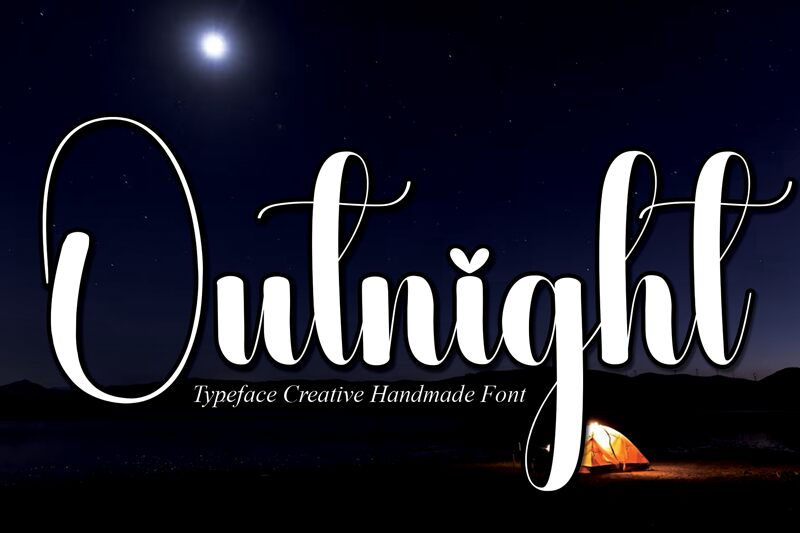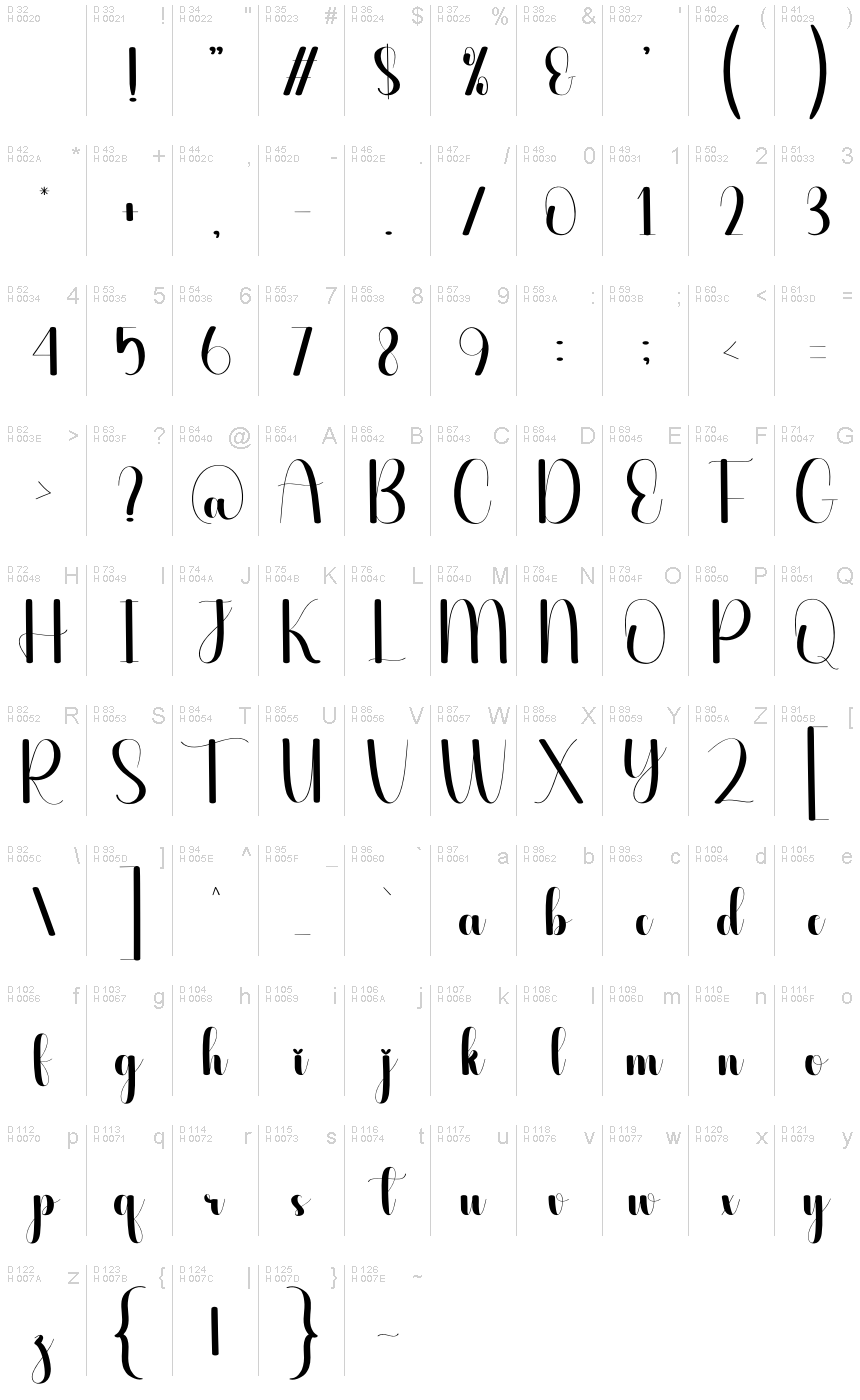
Outnight
Outnight font, designed by Scratchones, beautifully captures the essence of calligraphy with its graceful fluidity and artistic flair. Its striking curves and elegant swashes create a sense of sophistication, making it a visual delight for any project. The dramatic emphasis on certain strokes gives it an air of whimsy while ensuring legibility in larger settings.
Ideal for invitations, branding, or stylish poster designs, Outnight effortlessly combines creativity with practicality. Its unique character shines in both bold displays and understated contexts, making it versatile enough to enhance various design narratives. This font can bring warmth and charm to any piece, transforming words into art that resonates with viewers and evokes emotion.